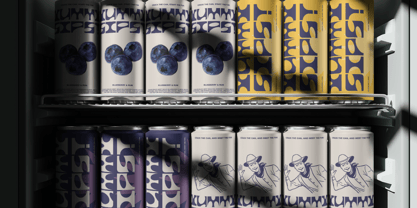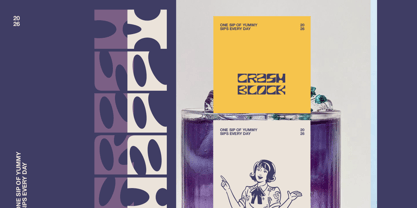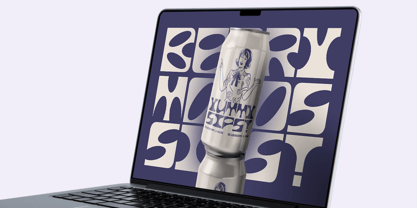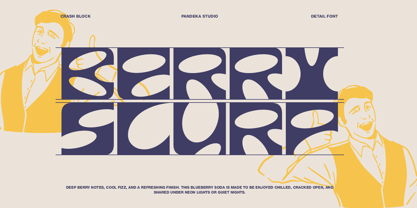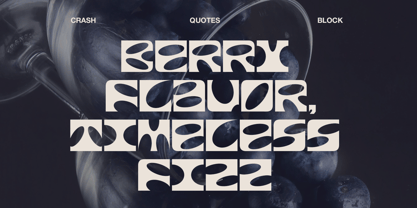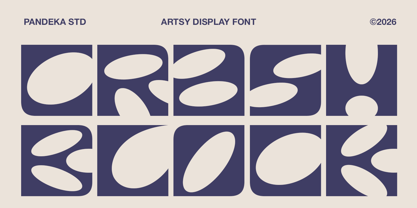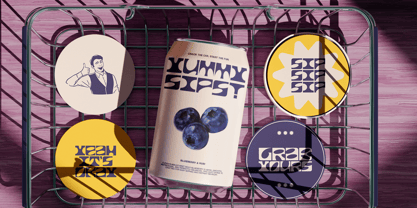
Crash Block is a bold and experimental display font with an artistic, modular, and playful character. Built with chunky geometric shapes and unique letter constructions, this font delivers a strong visual rhythm that feels modern, expressive, and full of creative energy. Its eye-catching style makes it perfect for bold headlines, poster designs, and contemporary branding that wants to stand out.
This font comes in 1 style: Regular, including uppercase and lowercase letters, numerals, punctuation, and symbol support. Crash Block is ideal for creative branding, art posters, album covers, packaging, street-style visuals, digital campaigns, and any project that needs a strong artistic statement with modern flair.
Crash Block